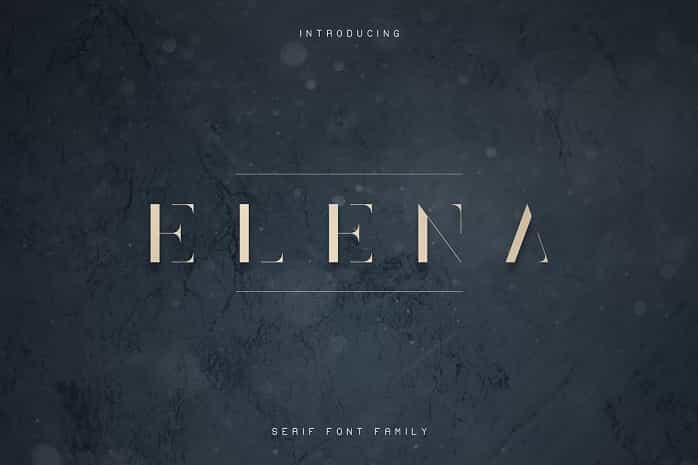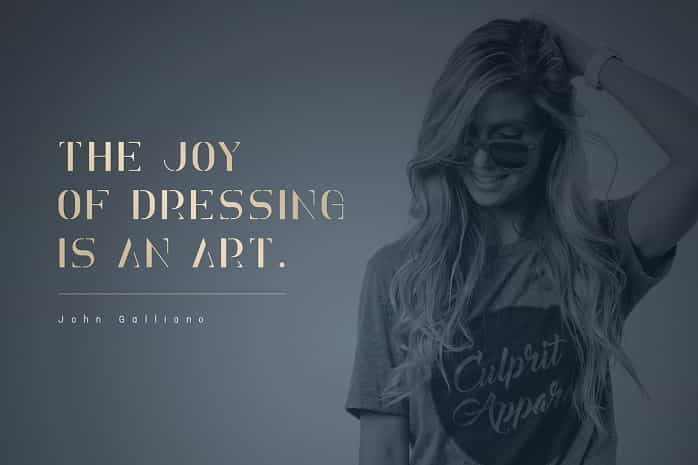
Elena Luxe Font is an modern serif font created by VPcreativeshop. Elena is clean, elegant typeface with 3 fonts and multilingual support. It’s a very versatile font that works great in large and small sizes. Elena is perfect for branding projects, home-ware designs, product packaging, magazine headers – or simply as a stylish text overlay to any background image.